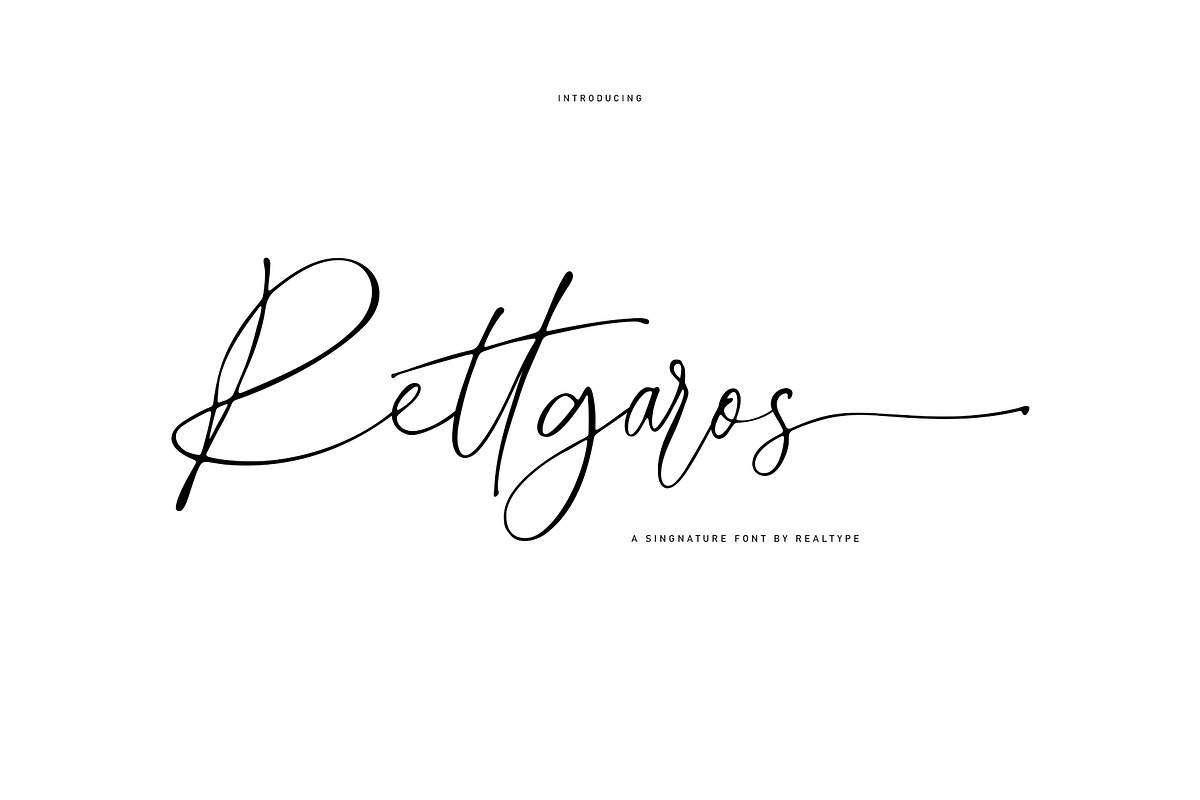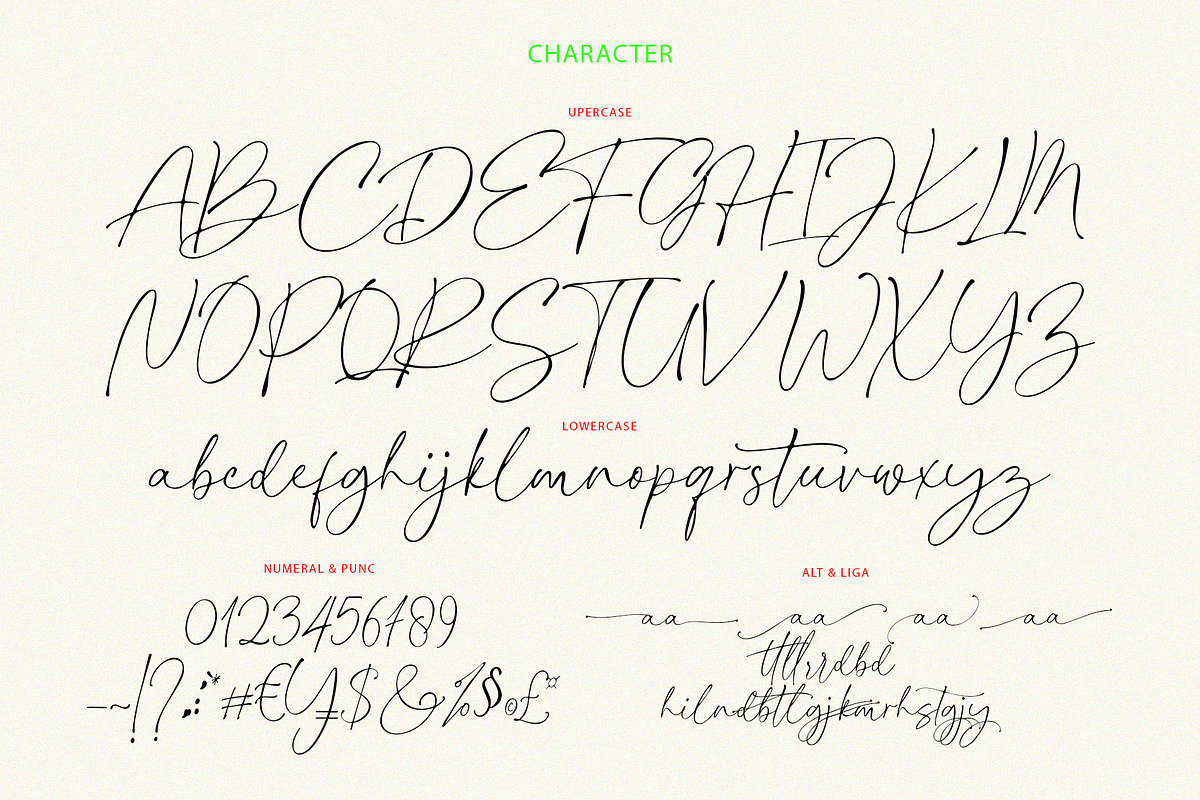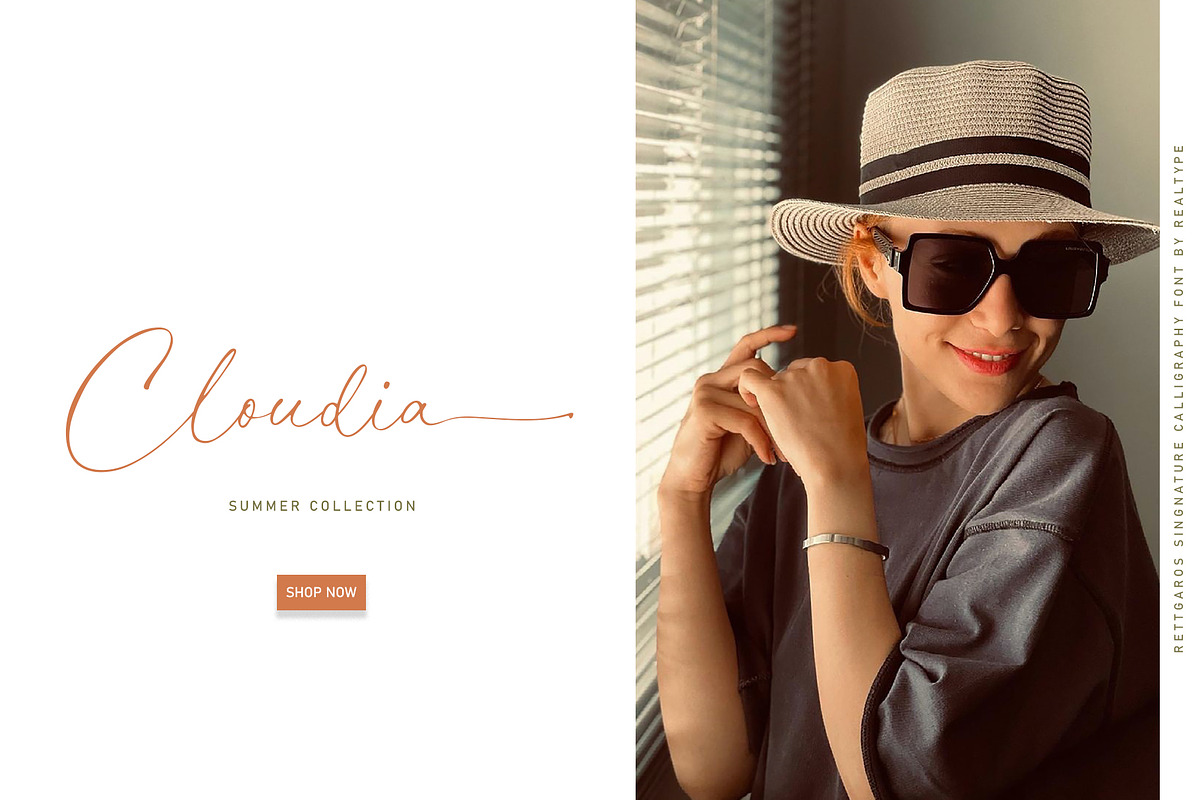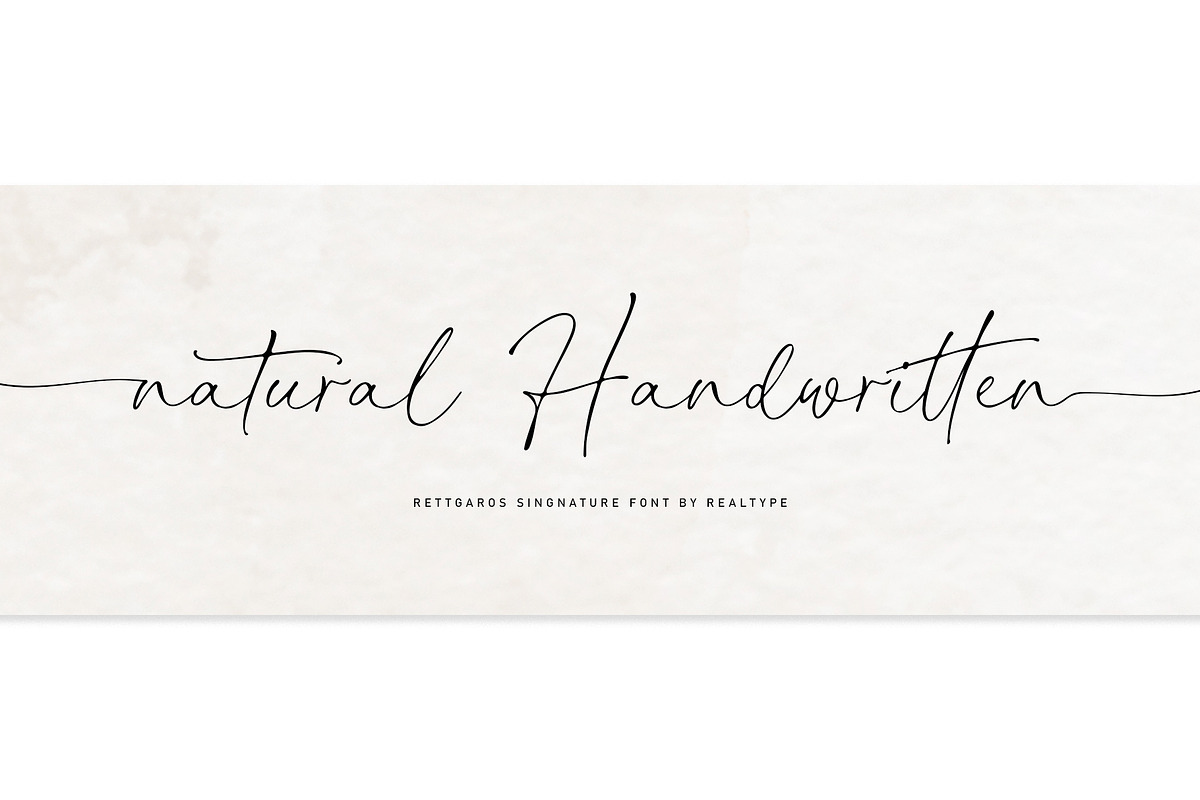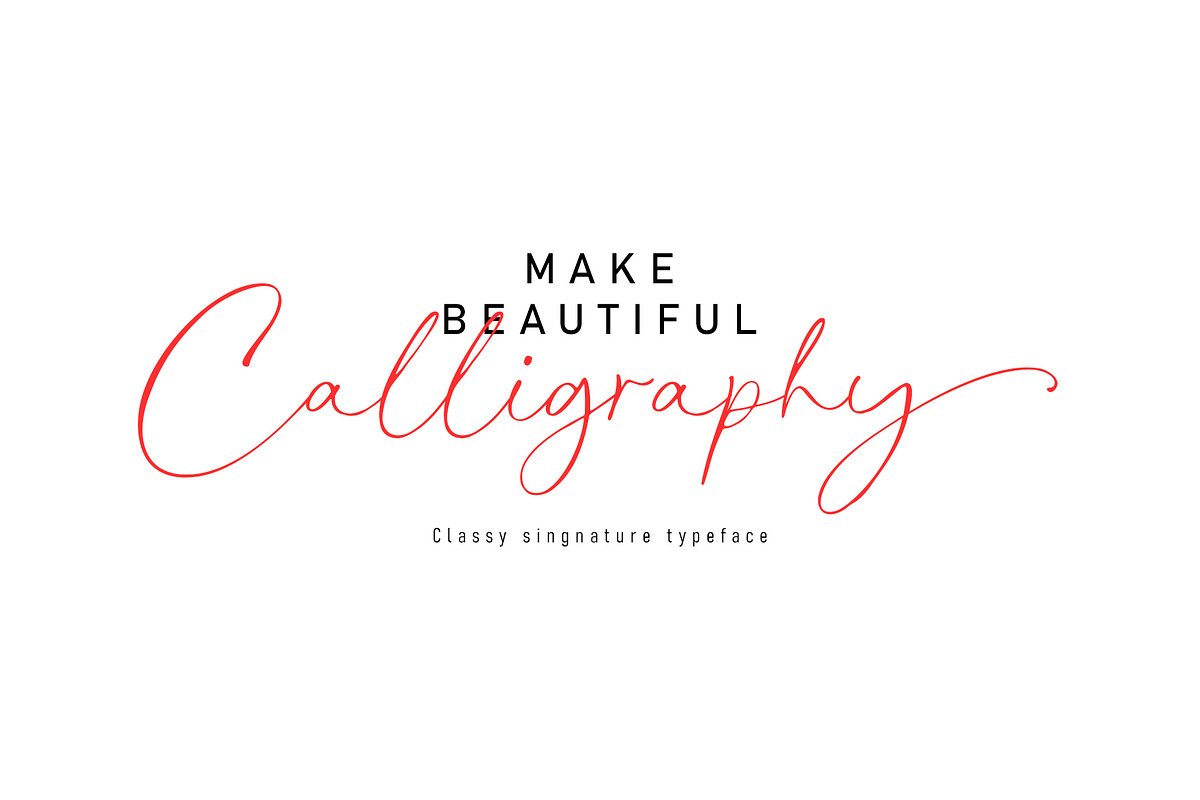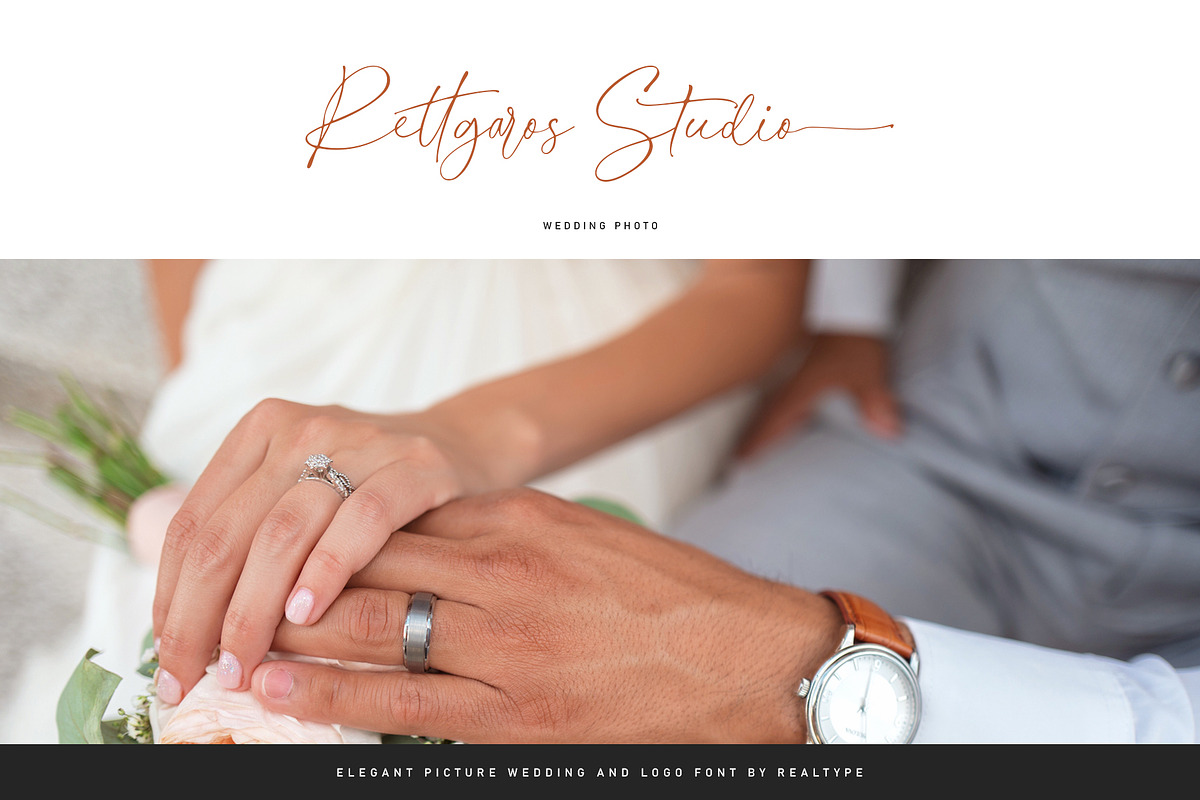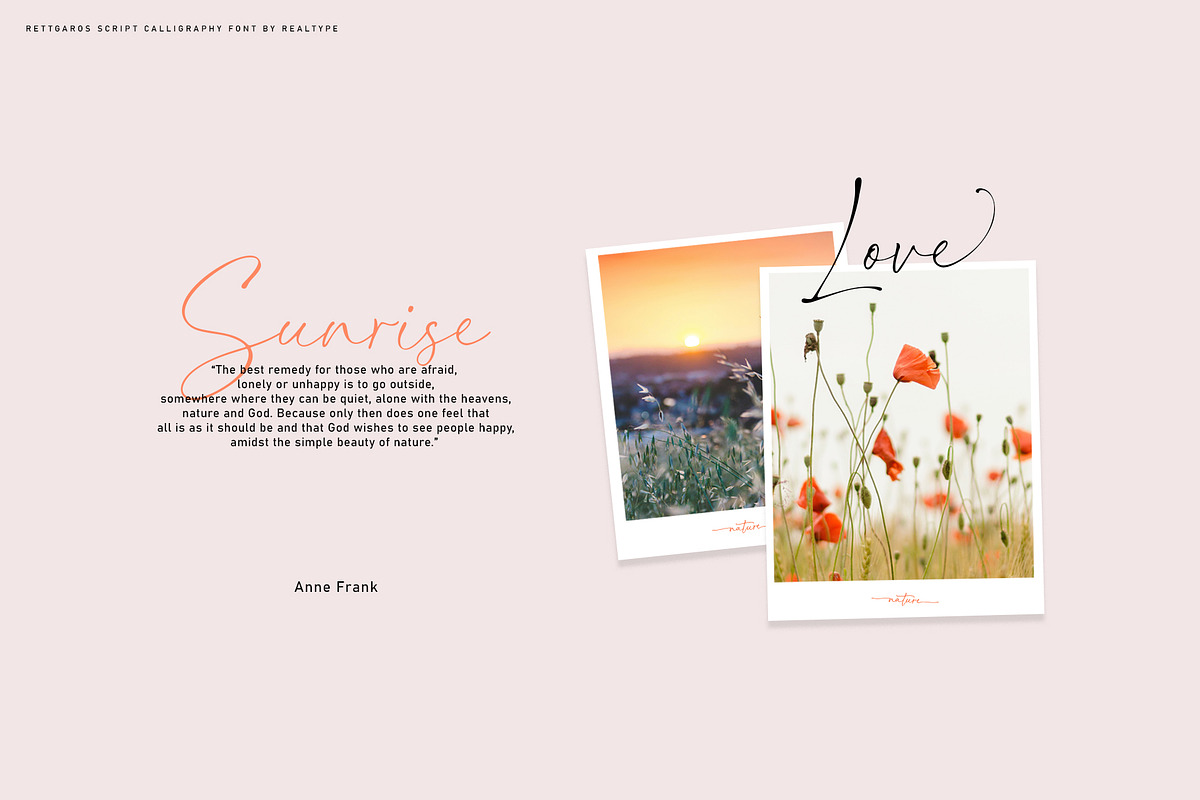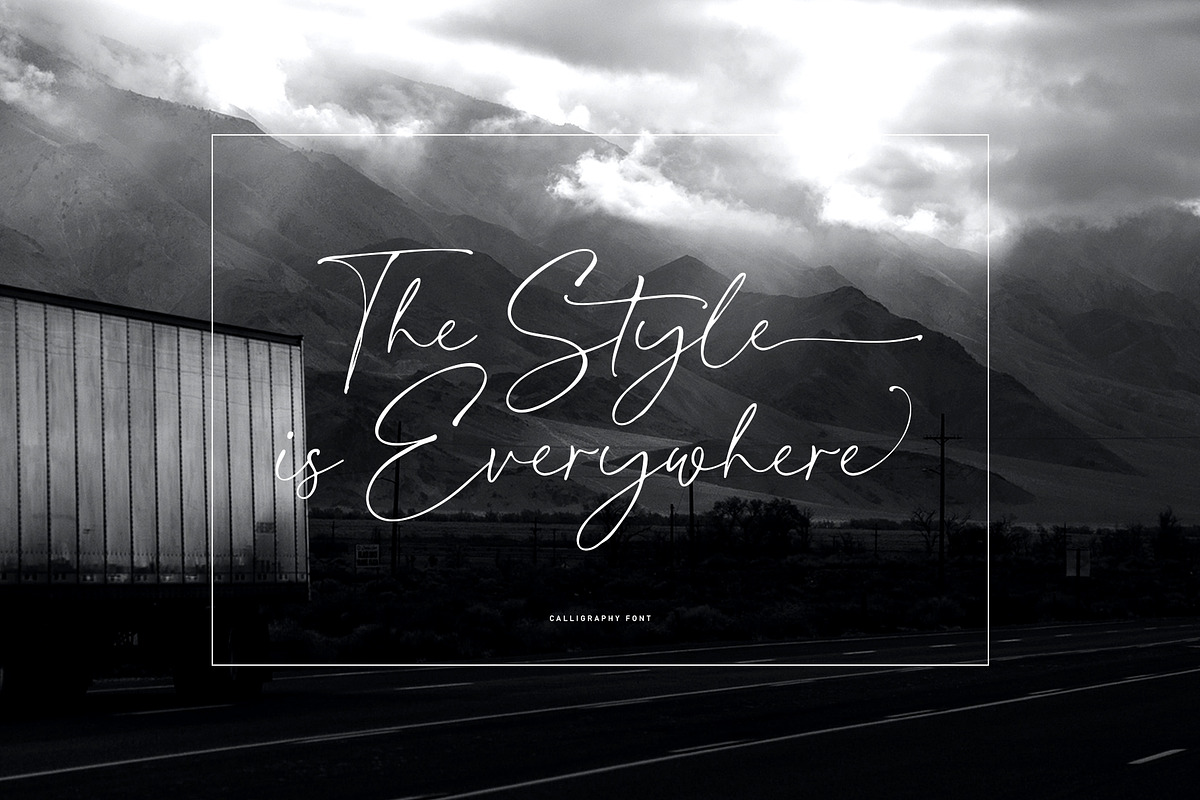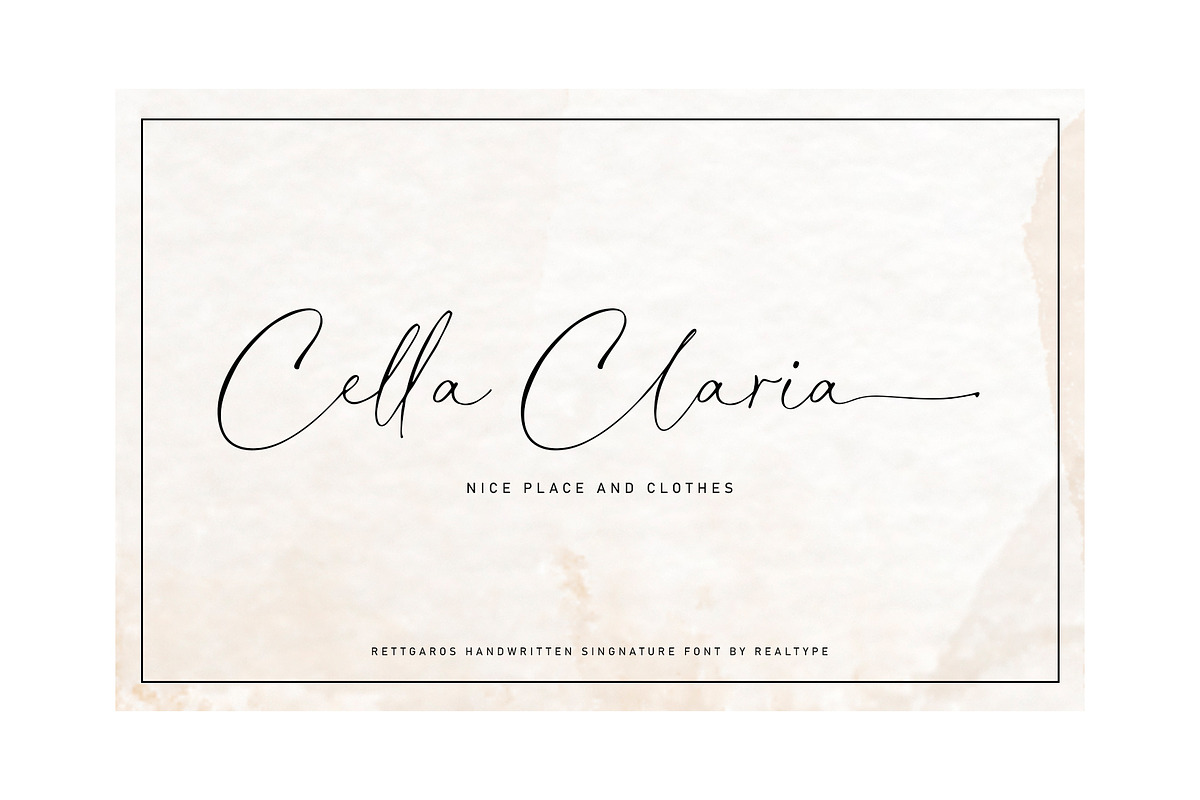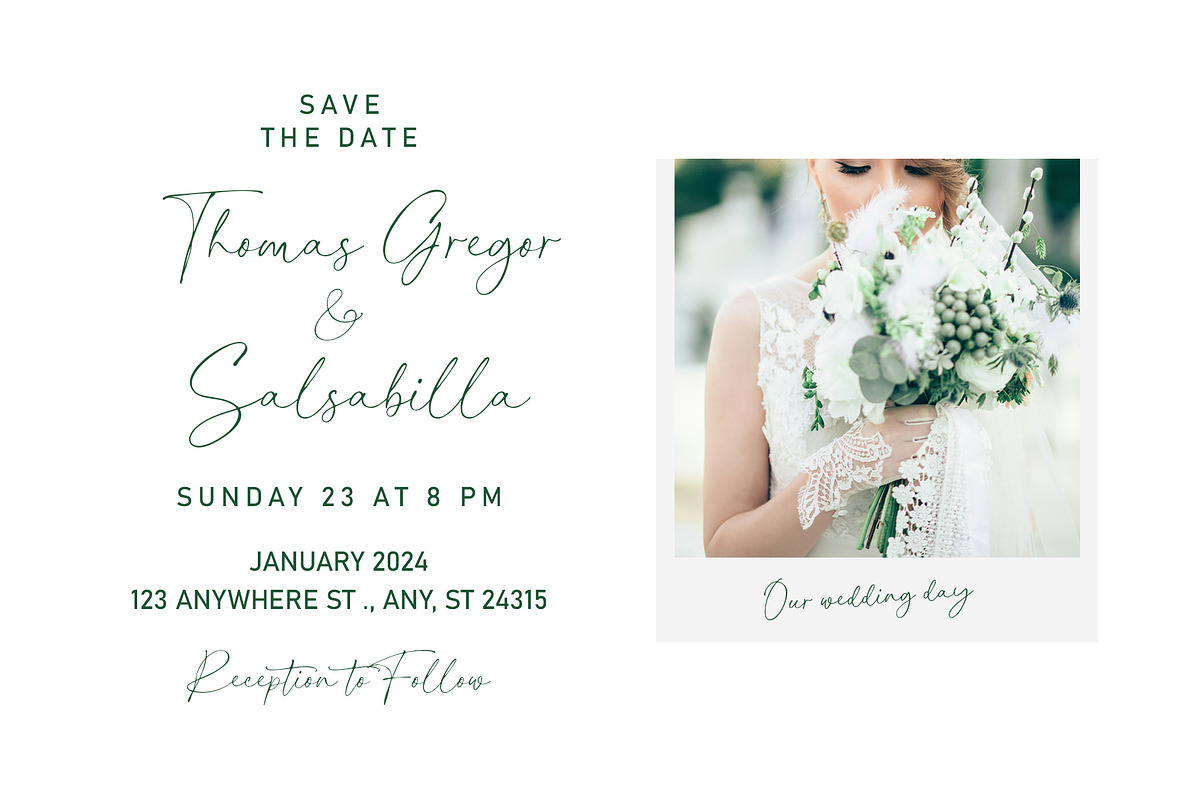
Rettgaros Script
Rettgaros Script Font consists of sophisticated, elegant, classy and modern handwriting. With a hint of dirty curves and made from new trending typography, this font will give you a design that looks fresh and modern.
Rettgaros Script, with soft patterns and an elegant, classy and natural feel. Perfect for getting a more charismatic impression or a unique touch to your projects and branding, greeting cards, weddings, business cards, lettering, font pairings, etc.